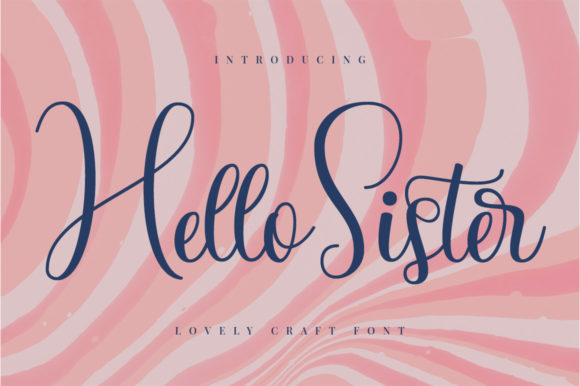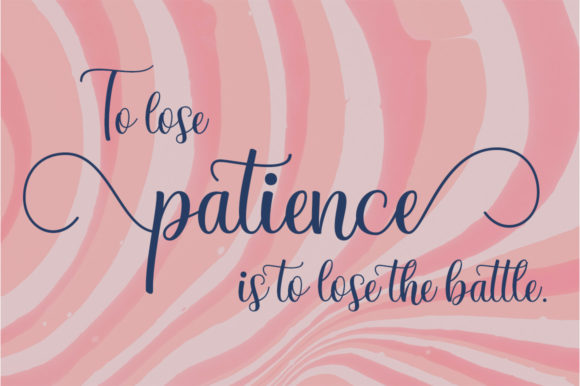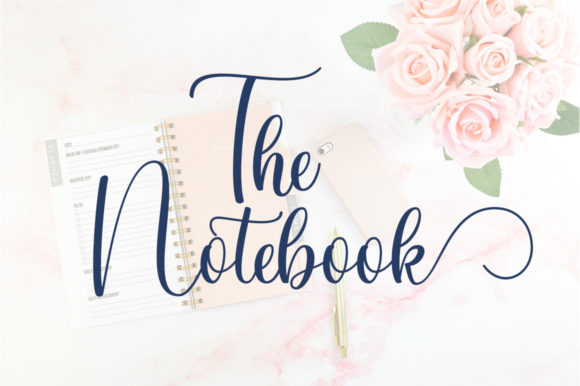
Hello Sister Font
About Hello Sister Font
Hello Sister is a beautiful and refined script font. It has a classy, elegant and modern look that can be used for logos, branding, invitations, stationery, wedding designs, social media posts, and much more!